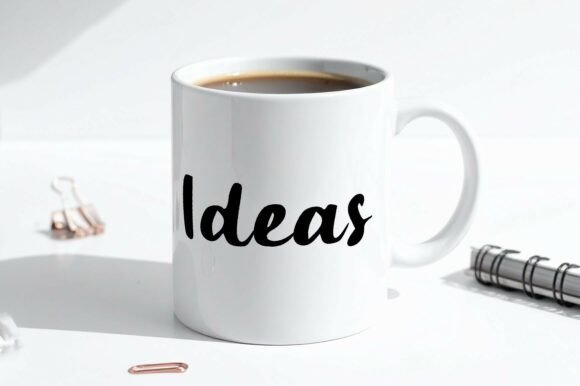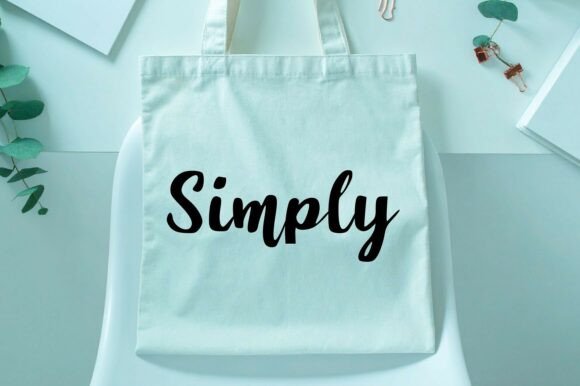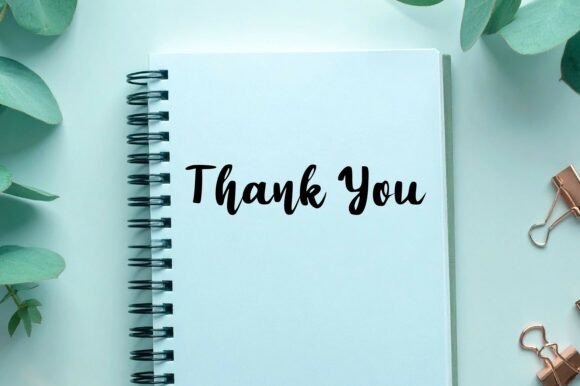
The Birth of a New Creative Era
As you sit at your desk, surrounded by scraps of paper and abandoned ideas, the silence is suddenly broken by the sound of your pen scratching against the page. The words begin to flow, and with each stroke, a vision takes shape. This is the moment when creativity knows no bounds, and the possibilities seem endless.
This is where the Binder Clip Font comes into play – a distinguished typeface that marries high art with an organic, handwritten feel. Its naturally flowing letterforms and rhythmically varied strokes infuse it with honest authenticity, making it a delightful addition to any project.
For designers, the Binder Clip Font offers a unique opportunity to breathe life into everyday items and lend a distinctive dash of innovative style. Its versatility in diverse contexts, from text display to casual conversation, makes it a valuable asset for any creative endeavor.
Binder Clip Font Key Features
- Unique Characteristic: Inspired by office supplies, the Binder Clip Font has a quirky, playful feel to it.
- Character Set: The font includes a wide range of characters, including uppercase and lowercase letters, numbers, and punctuation marks.
- Language Support: Supports multiple languages, including English, Spanish, French, German, Italian, and more.
- Style Variations: The font comes in two styles: Regular and Bold, offering flexibility for designers to create visually appealing text.
Binder Clip Font Review
Overall, I’d say Binder Clip Font is a cute and quirky addition to any design project. ✨ The font’s unique shape and style are reminiscent of those classic office supplies we all know and love. The designer has done a great job of capturing the essence of a binder clip in a digital format.
- Unique and recognizable design
- Clean lines and simple shapes
- Potential for fun and creative uses in design projects
- Good for titles, headings, or highlighting important text
- May not be suitable for formal or professional designs
- Can be a bit difficult to read in small sizes or at a distance
- Limited character set and language support
Overall, Binder Clip Font is a fun and playful addition to any design project. While it may not be the most versatile font, it’s perfect for adding a touch of whimsy and personality to your designs. With a little creativity, it can be used in a variety of ways to add visual interest and engage your audience.
Tips: Use the Binder Clip Font to add a touch of industrial chic to your designs. Experiment with different font sizes and colors to create a unique look.
Tips: Use the Binder Clip Font to create a distressed or vintage look in your designs. Experiment with different font sizes and layer styles to add depth and texture.
Tips: Use the Binder Clip Font to add a touch of industrial style to your presentations and documents. Experiment with different font sizes and colors to create a unique look.
The Binder Clip Font is commonly used in designs that require a touch of industrial chic or a vintage feel. It’s perfect for creating posters, flyers, and social media graphics that need a unique and eye-catching font
Montserrat is a modern sans-serif font that’s perfect for digital applications, including mobile apps, websites, and social media. It’s highly readable and comes in a range of weights, making it suitable for headlines, body text, and captions. Montserrat is more modern and sleek compared to Binder Clip Font, which is more playful and quirky.